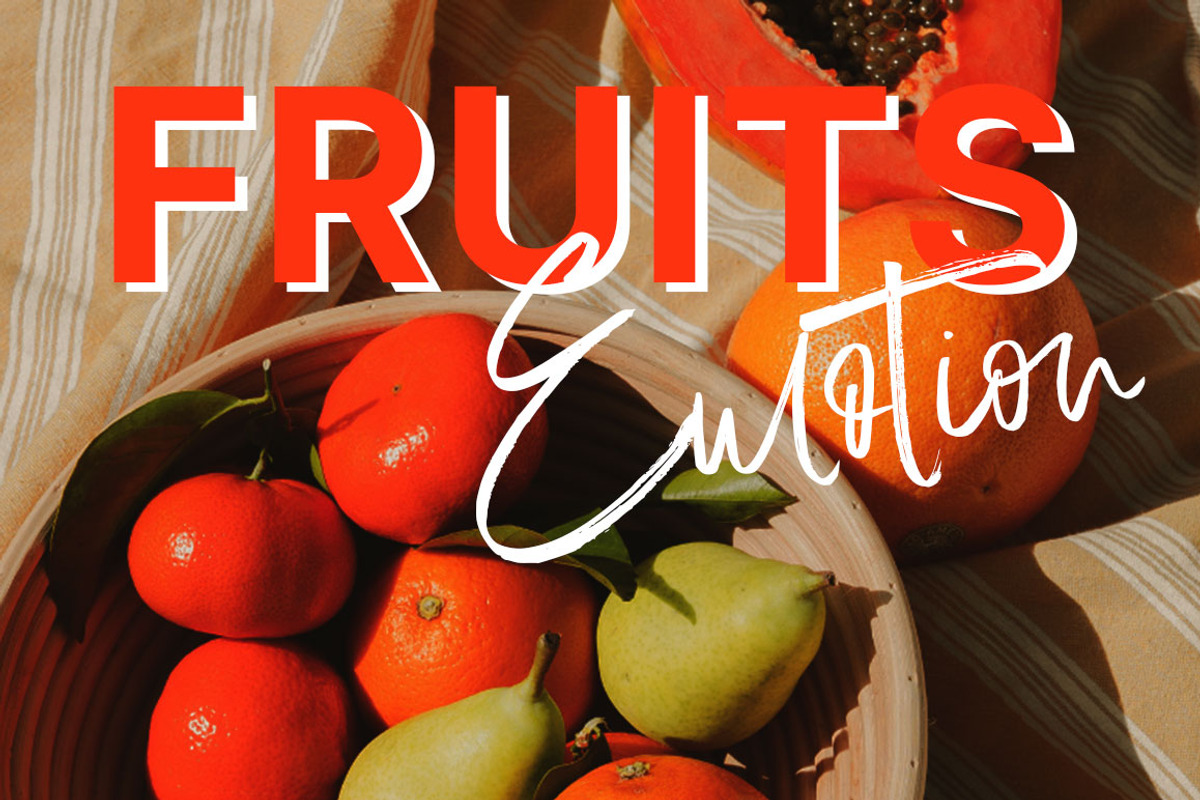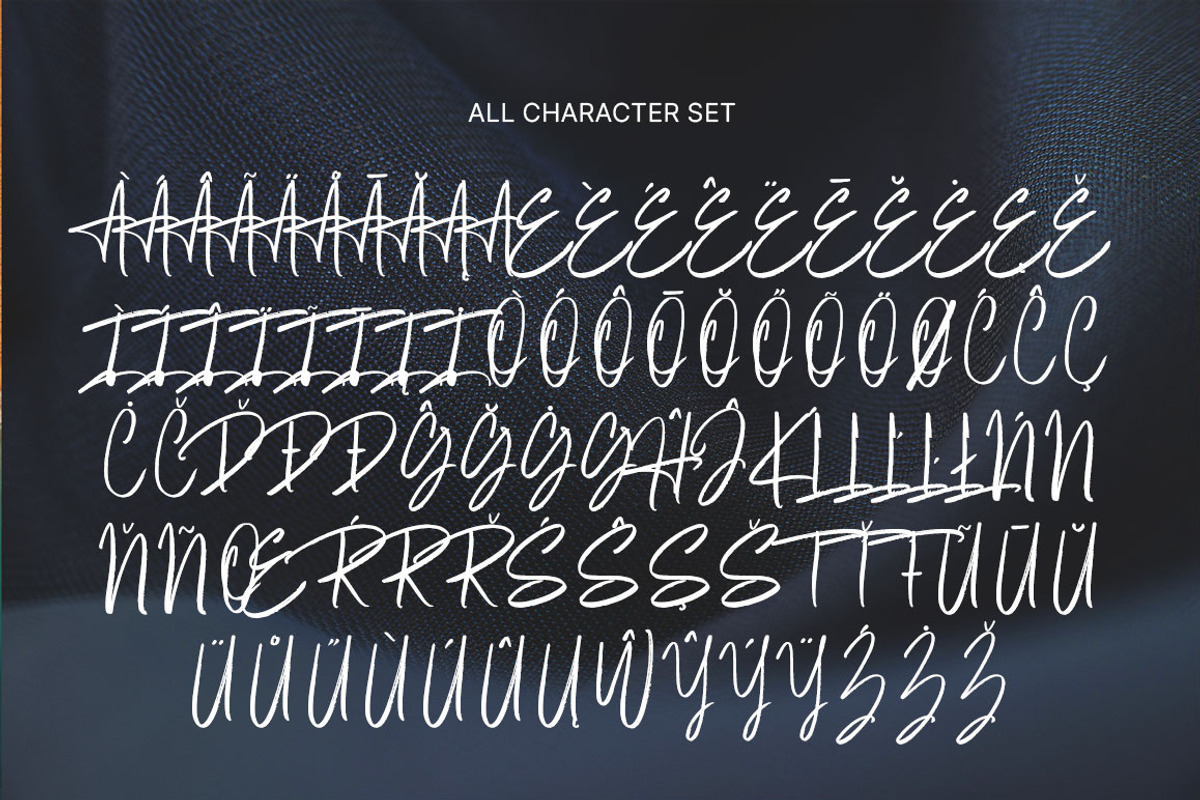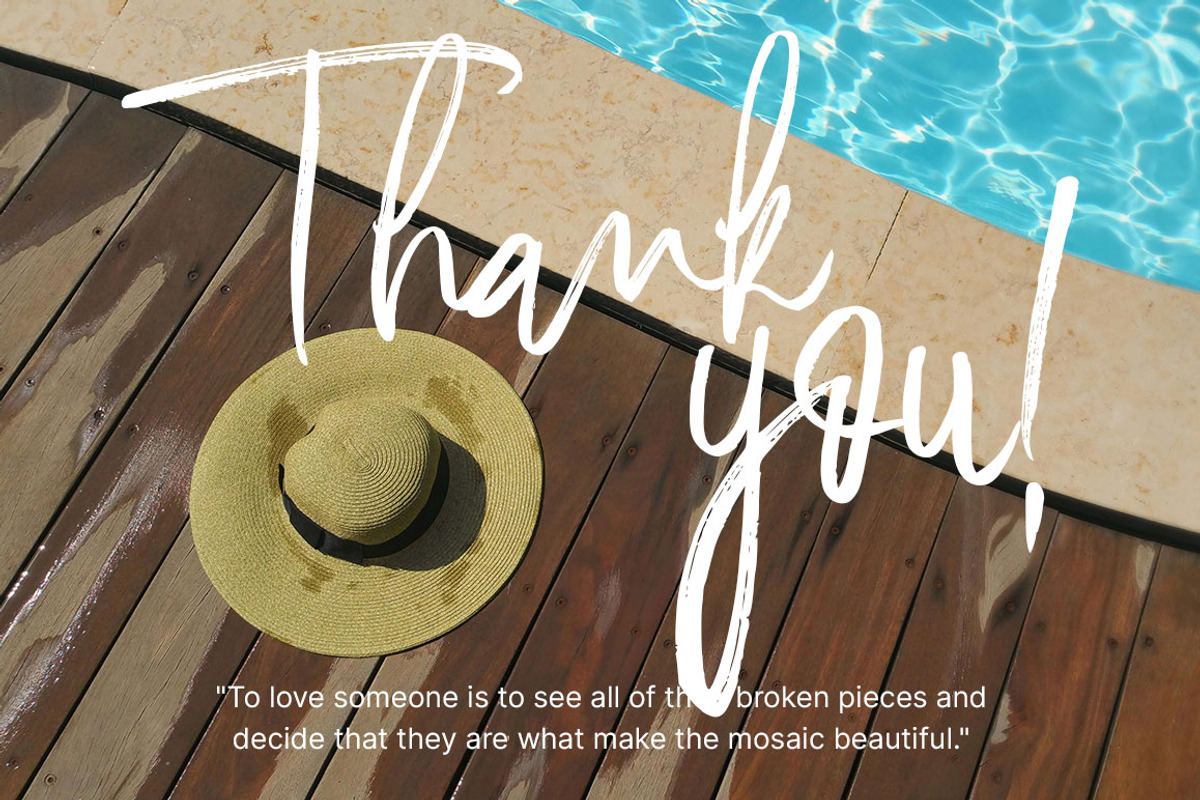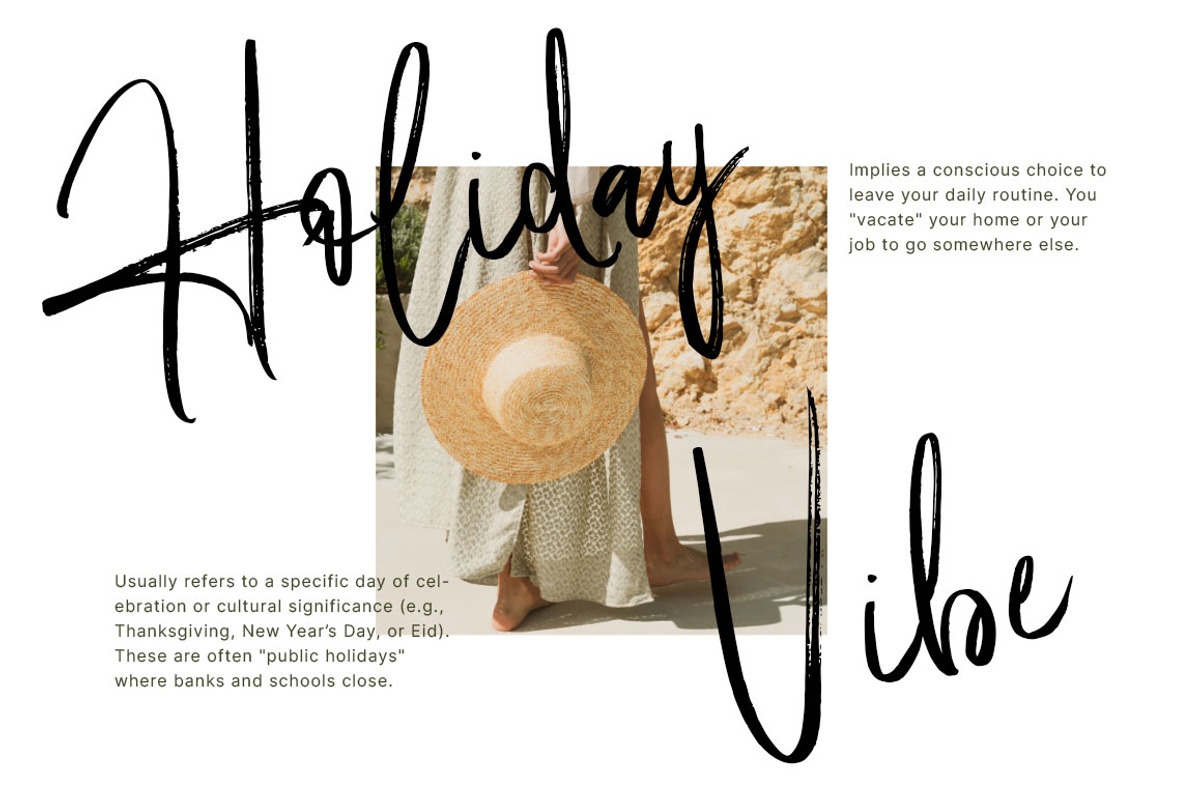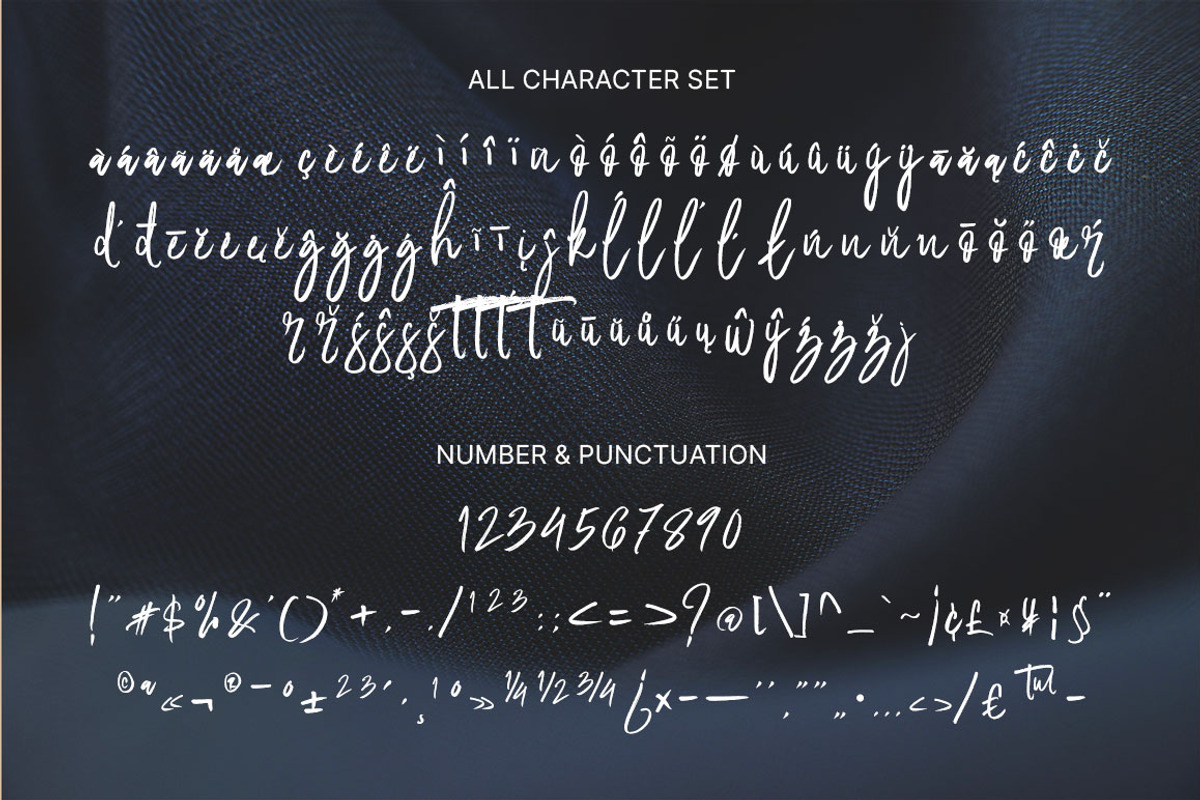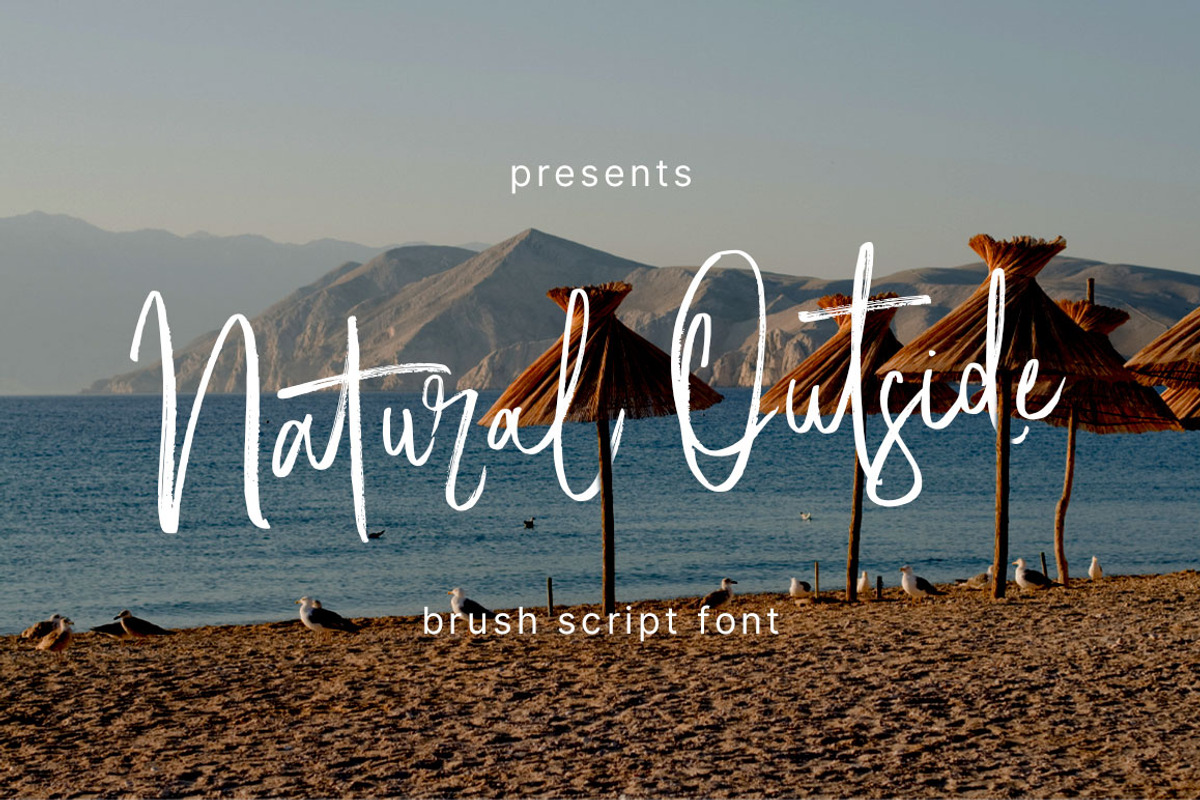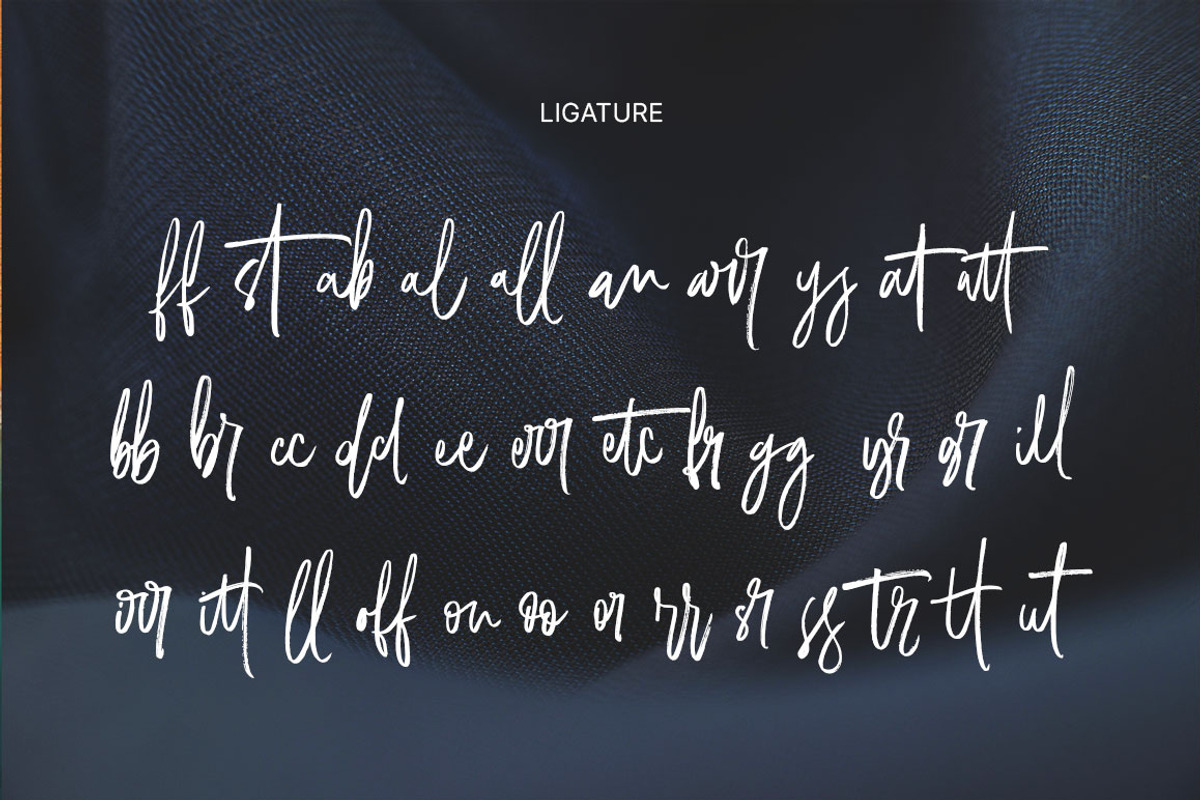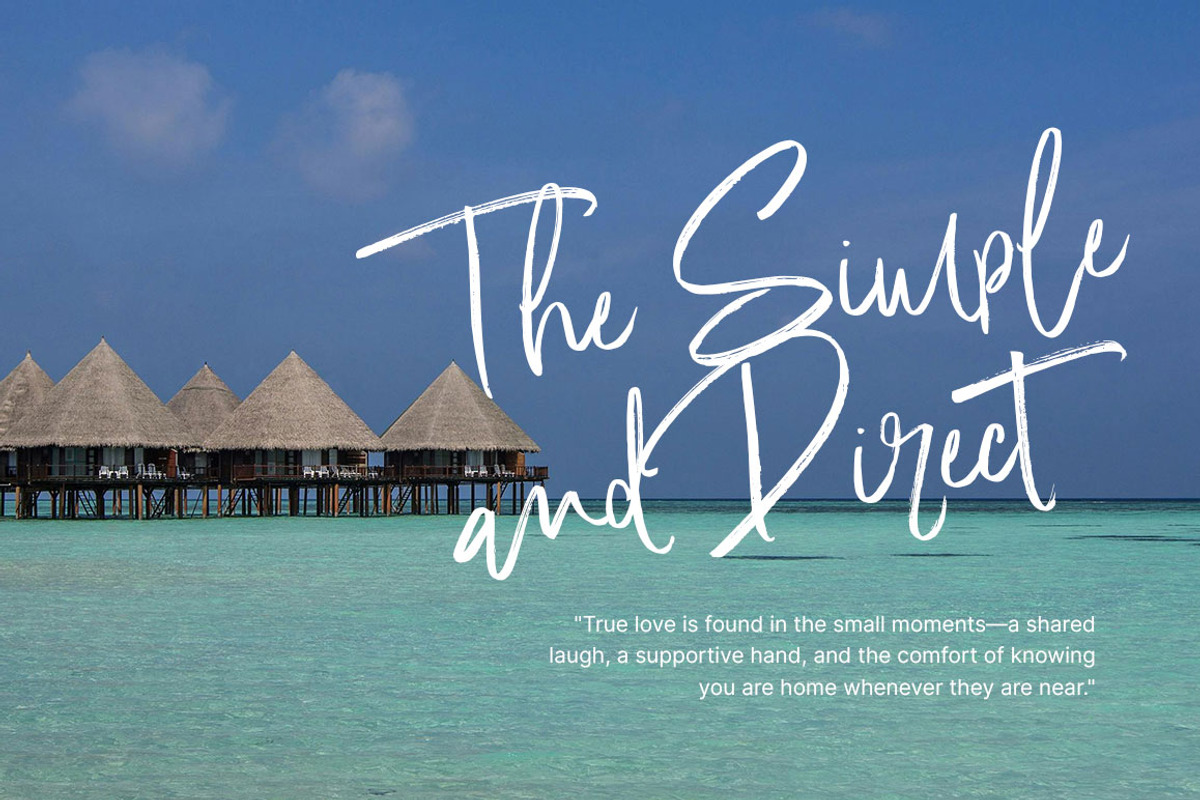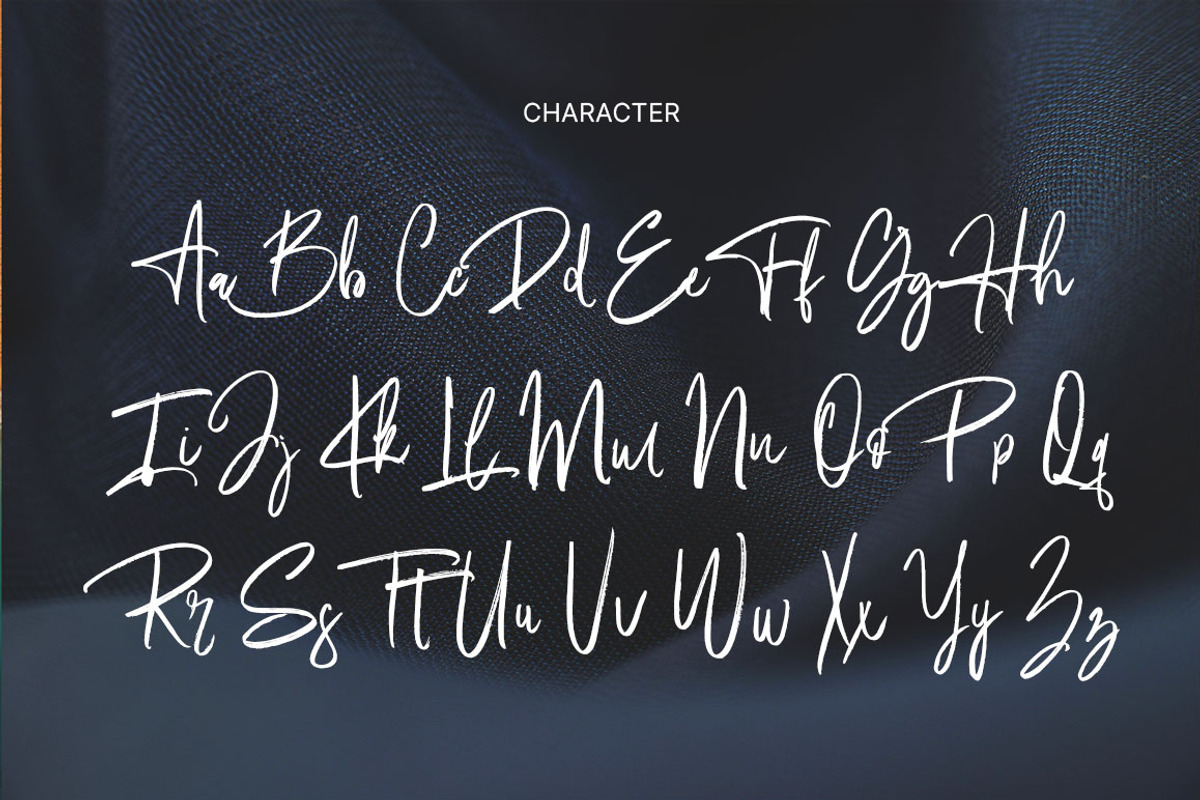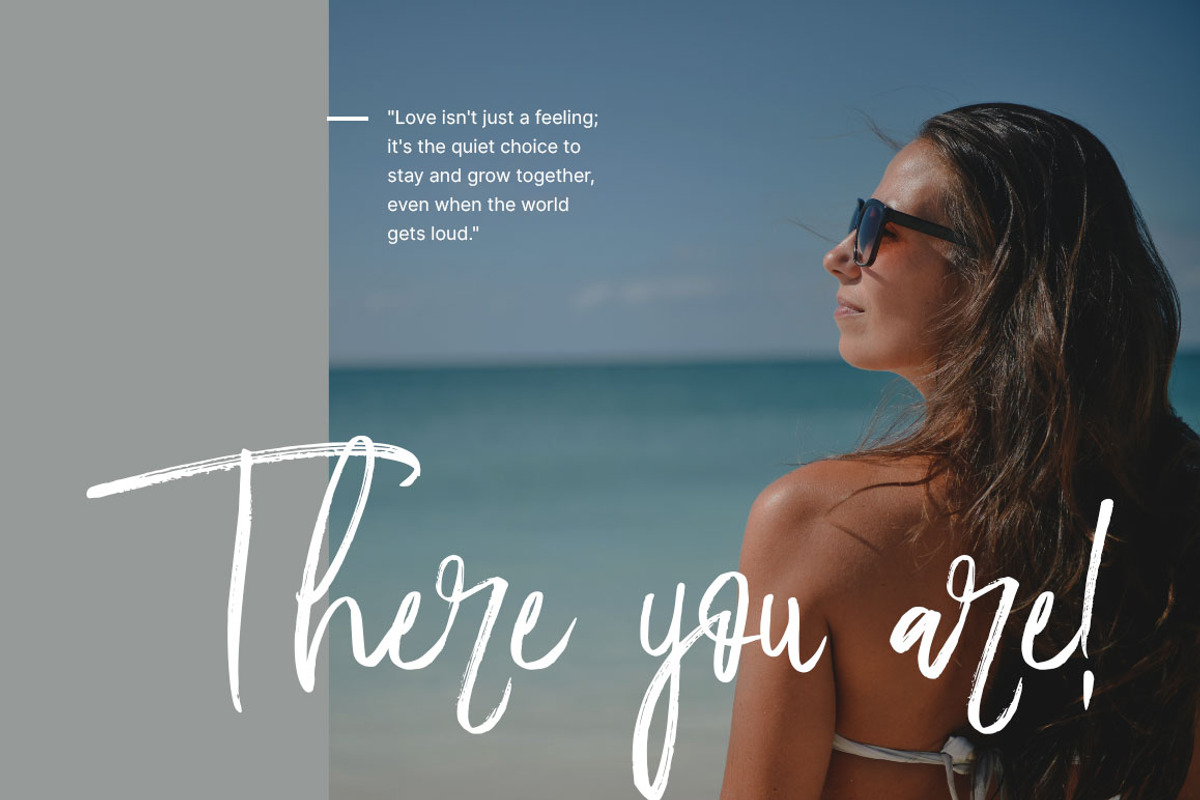
Natural Outside
Natural Outside is a casual handwritten font with a detailed and unique brushstroke texture. It can be used for a variety of purposes, such as titles, signatures, letterheads, signage, labels, newsletters, posters, logos, correspondence, wedding invitations, badges, and more.